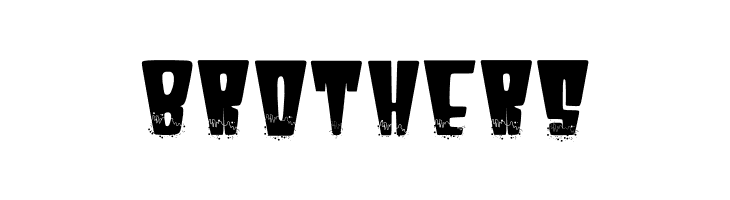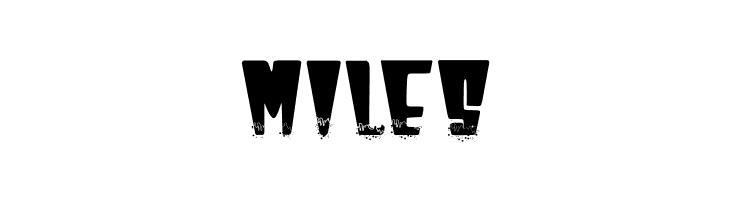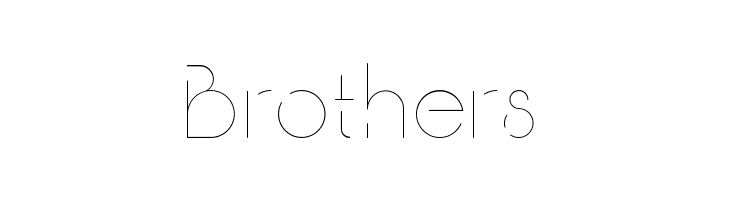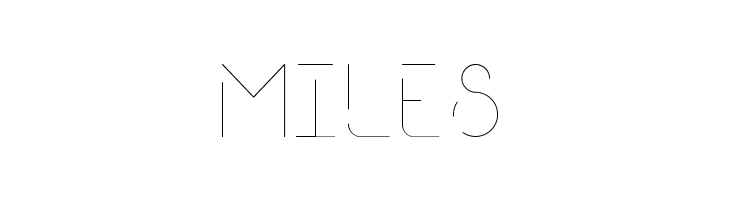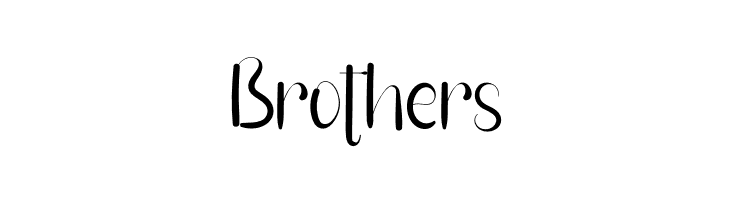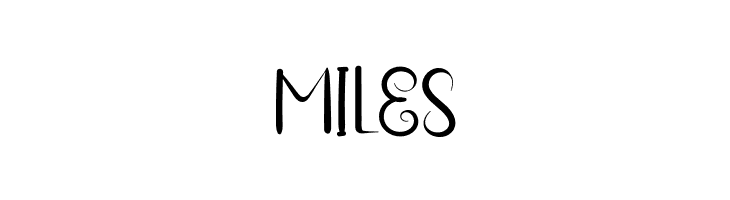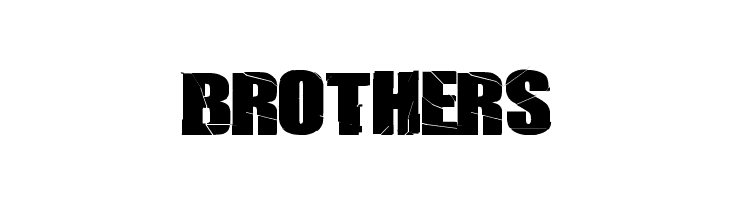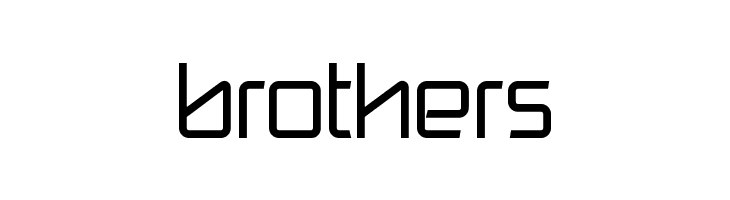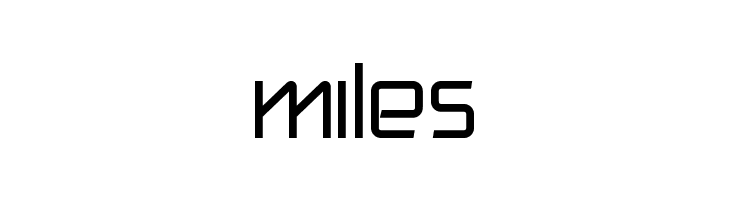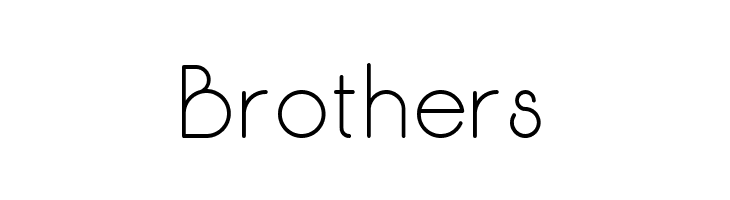
A minimalist, ultra-lightweight geometric font with a modern aesthetic.
A modern, geometric font with clean lines and a minimalist style.
A minimalist, geometric font with thin, uniform strokes and a modern aesthetic.
A modern, geometric font with thin, consistent lines and a minimalist style.
A modern geometric sans-serif font with consistent stroke widths and a clean design.
A bold, distressed font with a fiery, grunge effect.
A playful, whimsical font with flowing strokes and artistic flair.
A bold, distressed font with a shattered, edgy appearance.
A bold, fragmented font with a shattered glass effect, perfect for modern and edgy designs.
A modern, geometric font with a futuristic and digital aesthetic.